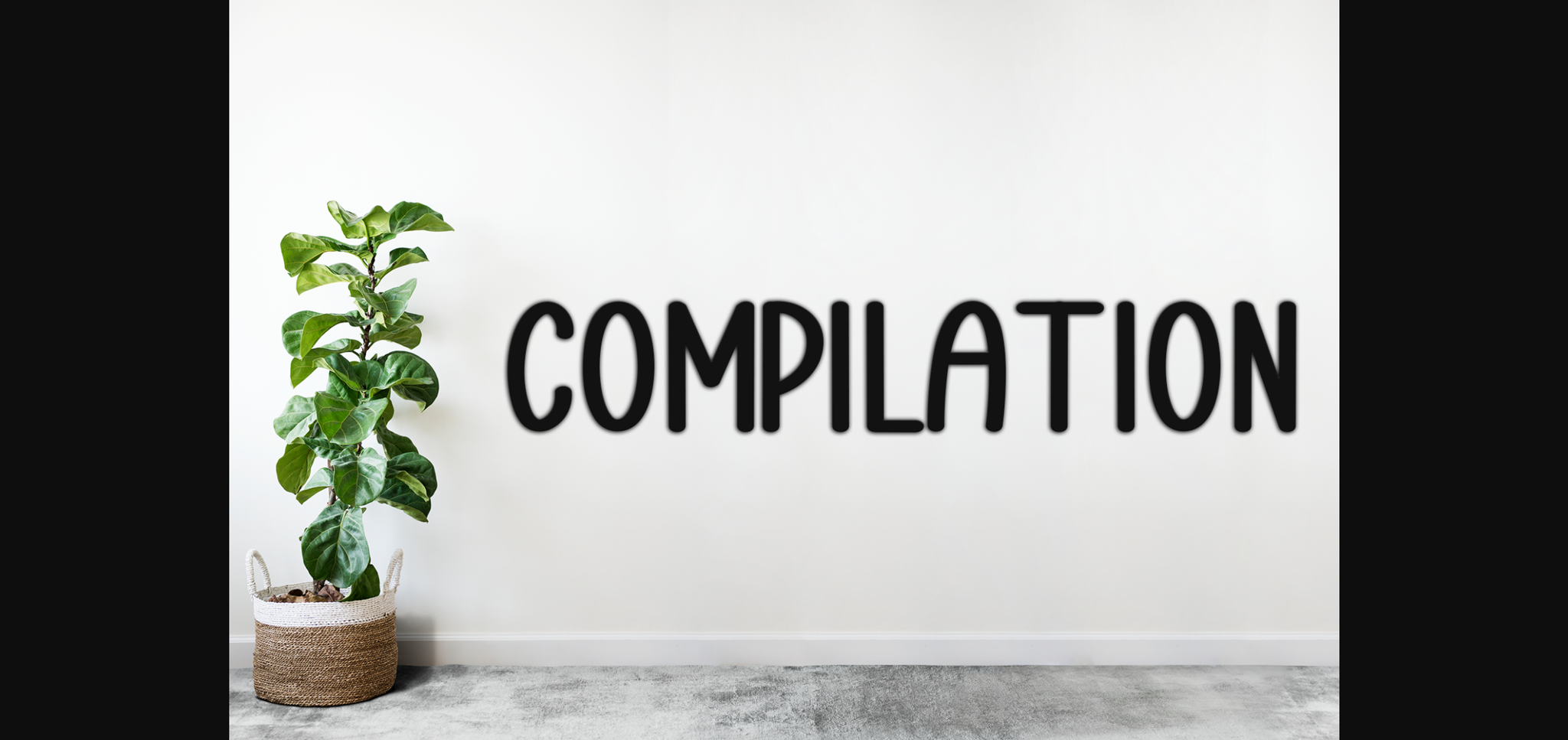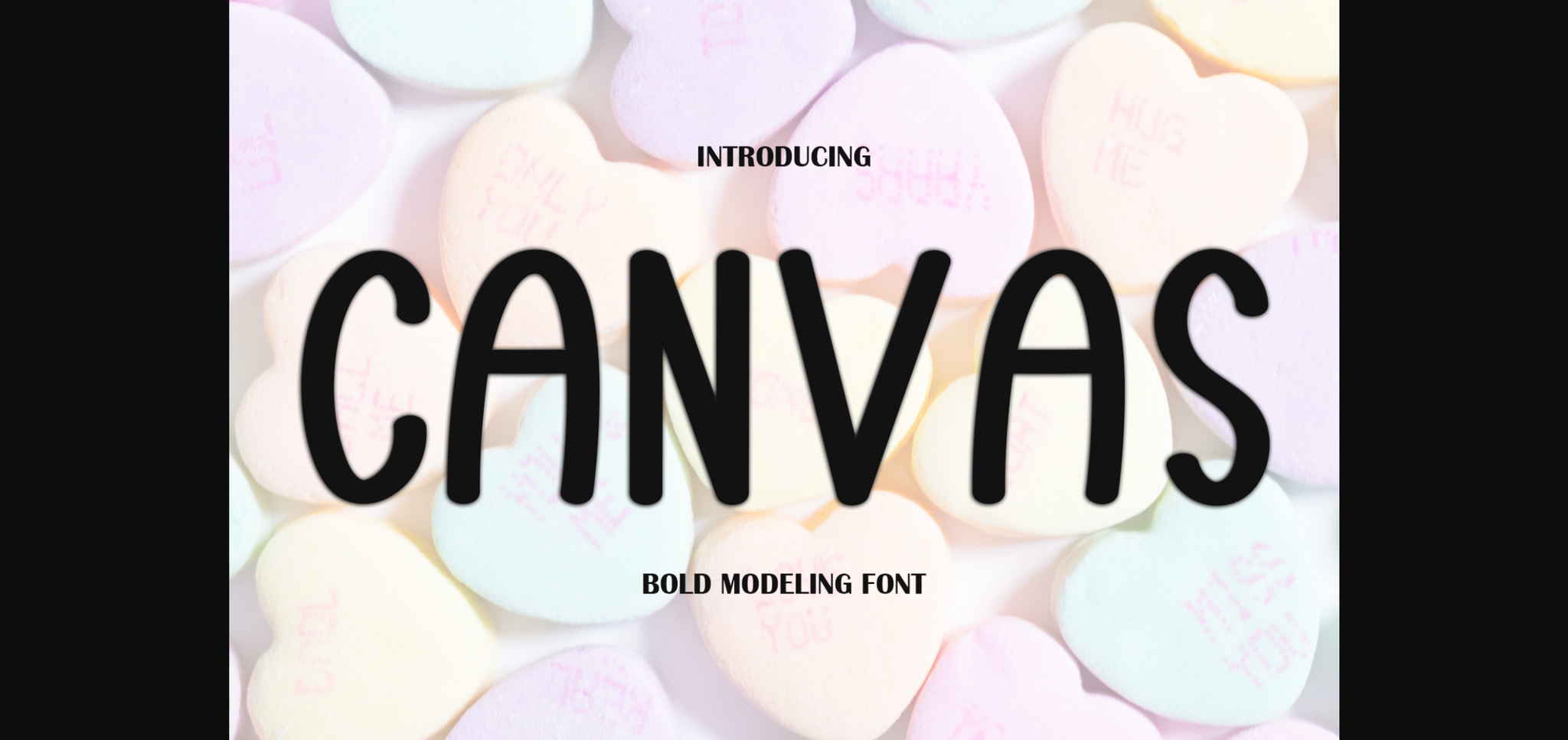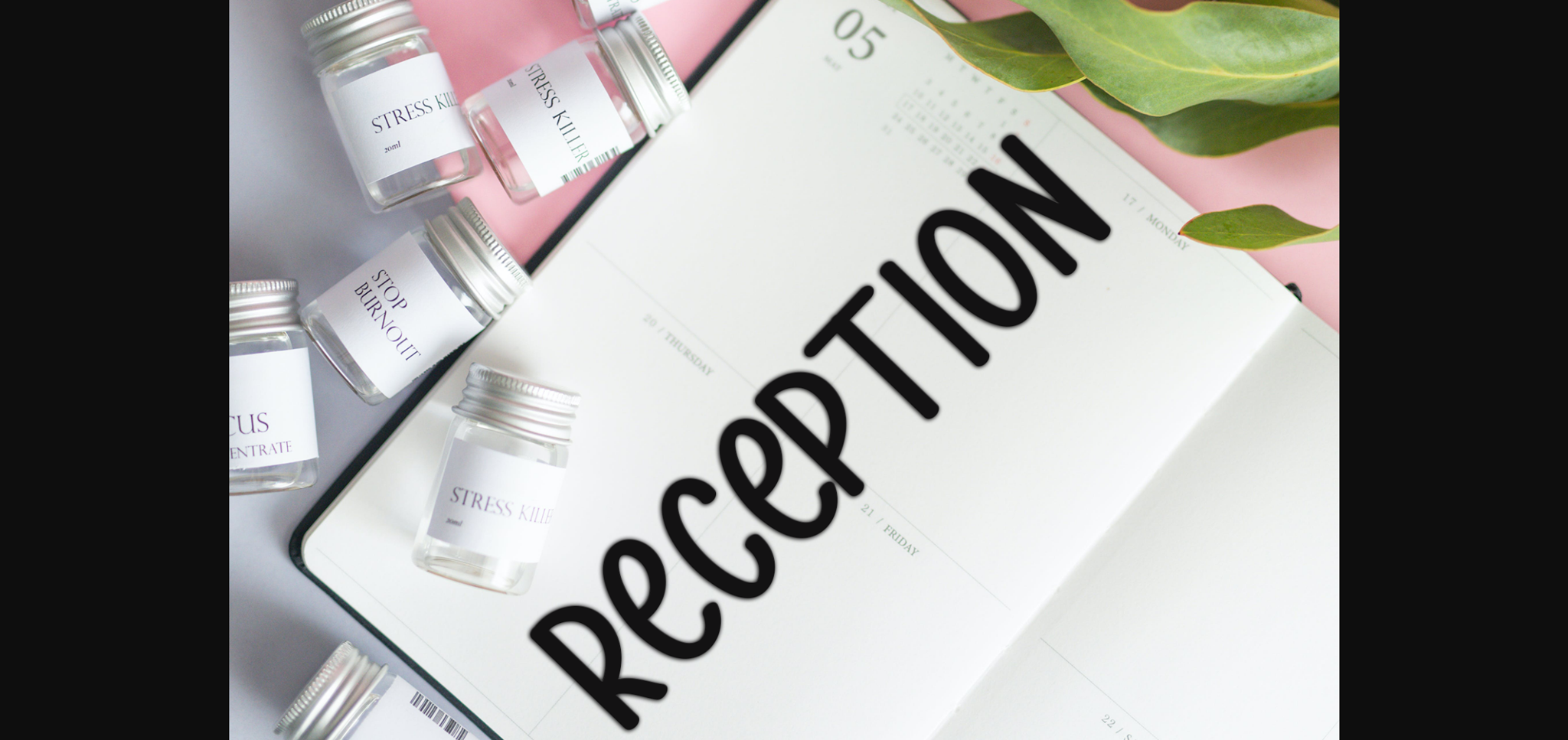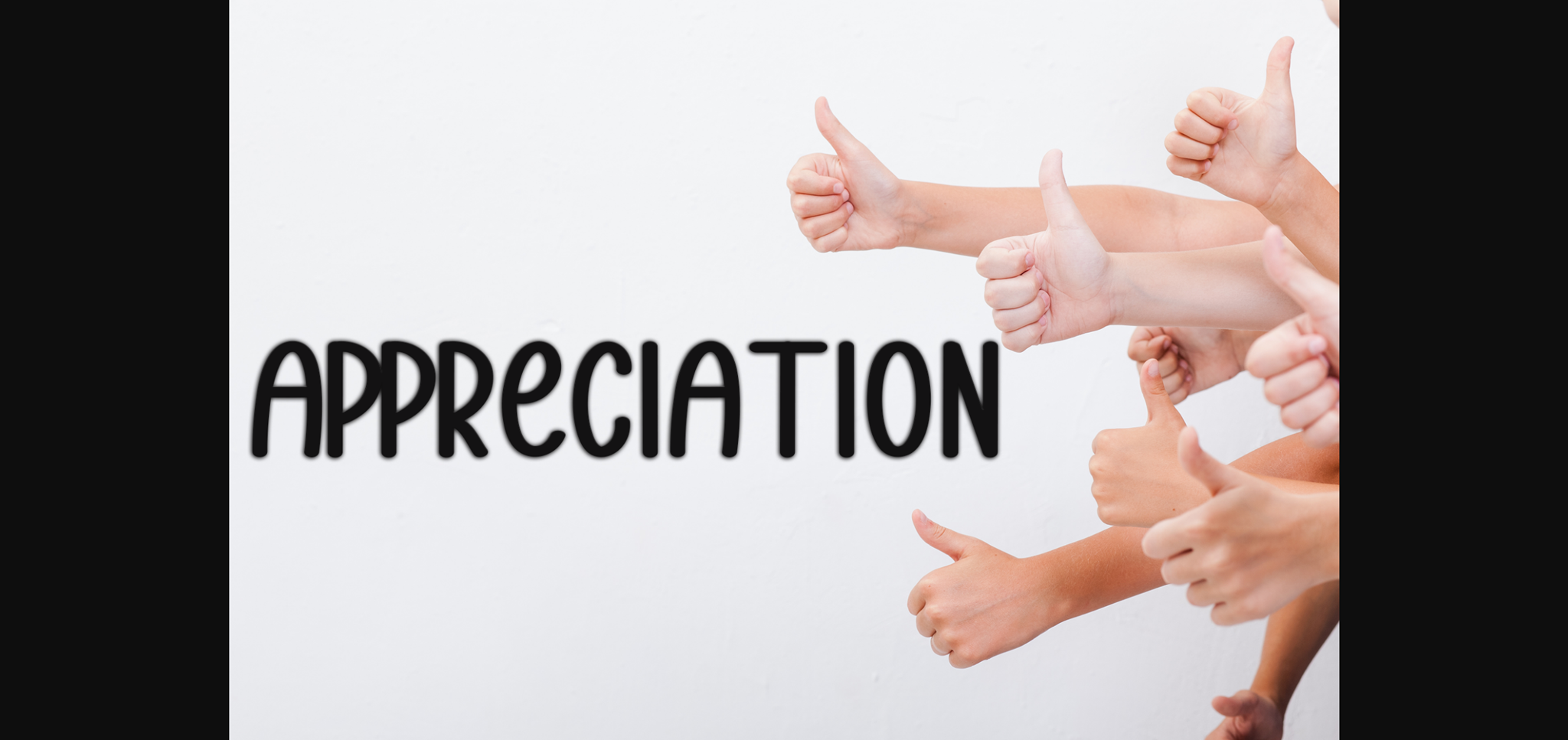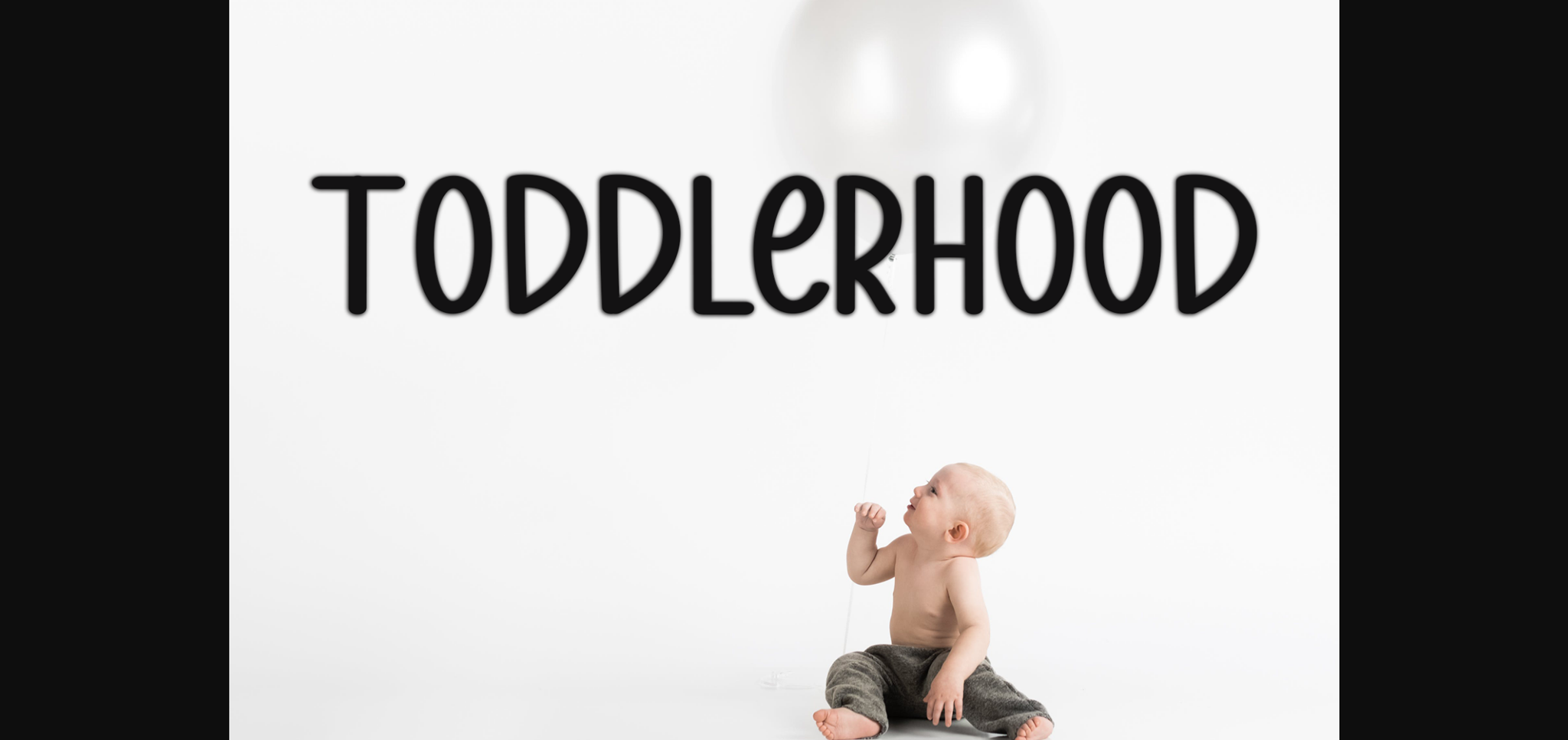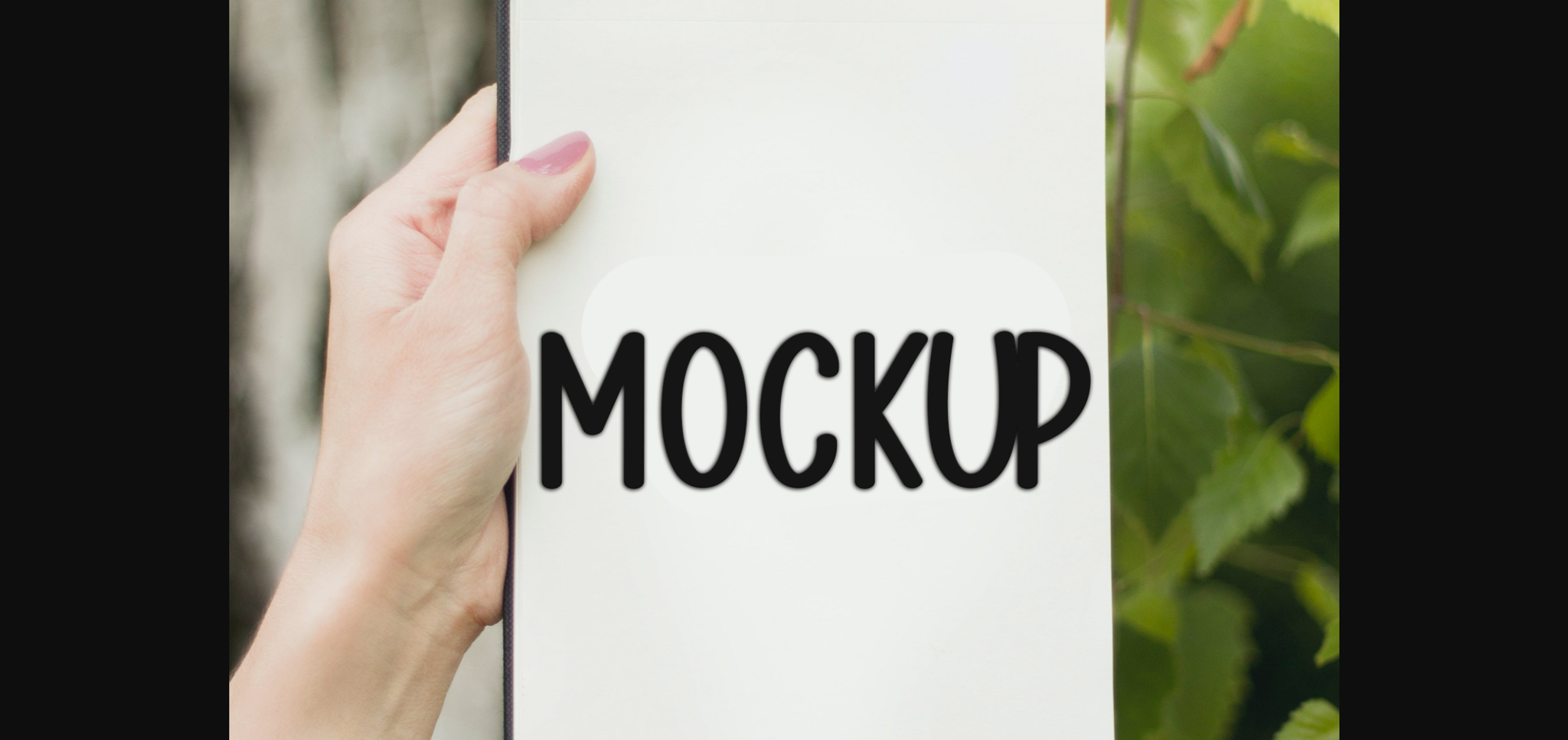
HomeSans Serif FontsCanvas Font Sans Serif Fonts Canvas Font FacebookXPinterestWhatsApp 1 of 9 ... Canvas Font Poster 2... Canvas Font Poster 3... Canvas Font Poster 4... Canvas Font Poster 5... Canvas Font Poster 6... Canvas Font Poster 7... Canvas Font Poster 8... Canvas Font Poster 9... About Canvas Font Canvas is a cool and modern sans-serif font. Whether you’re using it for crafts, digital design, presentations, or creating greeting cards, this font has the potential to be your go-to font, whatever the occasion. DOWNLOAD NOW People also explored Omelette Font Lonely Melody Font January is Comming Font Forever Grateful Font Baby Birthday Font Sweet Home Font Qurates Signature Two Font Loving Holiday Font Cutie Pies Font 415 0 TagsCanvasCanvas Font Previous articleAbsolute FontNext articleContinue Font LEAVE A REPLY Cancel reply Comment: Please enter your comment! Name:* Please enter your name here Email:* You have entered an incorrect email address! Please enter your email address here Website: Save my name, email, and website in this browser for the next time I comment. Personal Use Free Anti Personal Use Free Read more about this font Child Writing Free Personal Use Free Read more about this font Dream Orphans Personal Use Free Read more about this font Kitsor Rauttie Personal Use Free Read more about this font BLOG How to Install and Use Fonts on Windows, macOS, and Web Projects How to Install and Use Fonts on Windows, macOS, and Web Projects Fonts are a crucial part of design and branding. Whether you’re designing a... 5 Fonts That Will Dominate Design Trends in 2026 Using Fonts in Digital Marketing: Tips to Strengthen Your Brand Identity Exploring Font Trends